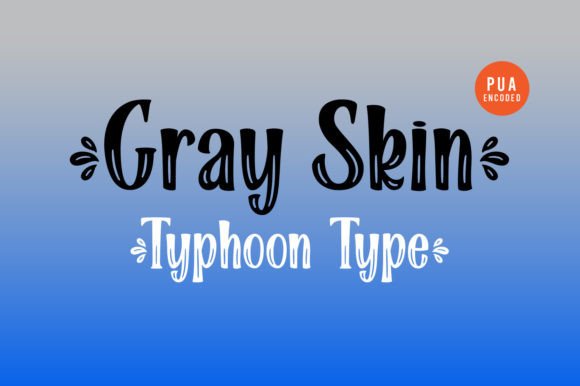
Gray Skin Font: Elevate Your Designs with a Cool, Bouncy, and Interesting Display Font
When it comes to creating visually stunning designs, the right font can make all the difference. A font that can add a touch of personality and uniqueness to your creations is essential. This is where Gray Skin Font comes in – a cool, bouncy, and interesting display font that can elevate any design project. In this article, we’ll explore the features and benefits of Gray Skin Font, and why it’s an incredible asset to your font library.
What is Gray Skin Font?
Gray Skin Font is a display font designed to add a touch of playfulness and sophistication to your designs. Its unique and bouncy style makes it perfect for headlines, titles, and other display purposes. The font’s gray skin tone gives it a distinctive look that sets it apart from other fonts.
Benefits of Using Gray Skin Font
So, why should you consider adding Gray Skin Font to your font library? Here are just a few benefits:
- Versatility: Gray Skin Font can be used on a wide range of design projects, from posters and flyers to digital graphics and social media posts.
- Uniqueness: The font’s bouncy and interesting style ensures that your designs will stand out from the crowd.
- Elegance: Despite its playful nature, Gray Skin Font has an elegant and sophisticated feel that makes it suitable for high-end designs.
Design Applications of Gray Skin Font
Gray Skin Font is a versatile font that can be used in a variety of design applications. Here are a few ideas to get you started:
- Posters and Flyers: Use Gray Skin Font to create eye-catching headlines and titles for your posters and flyers.
- Branding and Logo Design: The font’s unique style makes it perfect for creating memorable logos and brand identities.
- Social Media Graphics: Add a touch of personality to your social media posts with Gray Skin Font.
- Digital Graphics: Use the font to create stunning digital graphics, such as infographics and presentations.
Typography Tips for Using Gray Skin Font
To get the most out of Gray Skin Font, here are a few typography tips to keep in mind:
- Use it as a display font: Gray Skin Font is designed for display purposes, so use it to create headlines and titles.
- Experiment with font sizes: The font’s bouncy style looks great at a range of font sizes, so don’t be afraid to experiment.
- Pair it with other fonts: Gray Skin Font pairs well with a range of other fonts, so try combining it with a serif or sans-serif font for added contrast.
Why Gray Skin Font is an Incredible Asset to Your Font Library
Gray Skin Font is an incredible asset to your font library for several reasons:
- Unique style: The font’s bouncy and interesting style ensures that your designs will stand out from the crowd.
- Versatility: Gray Skin Font can be used on a wide range of design projects.
- Elegance: Despite its playful nature, Gray Skin Font has an elegant and sophisticated feel that makes it suitable for high-end designs.
In conclusion, Gray Skin Font is a cool, bouncy, and interesting display font that can elevate any design project. Its unique style, versatility, and elegance make it an incredible asset to your font library. Whether you’re working on a poster, flyer, or digital graphic, Gray Skin Font is sure to add a touch of personality and sophistication to your designs.